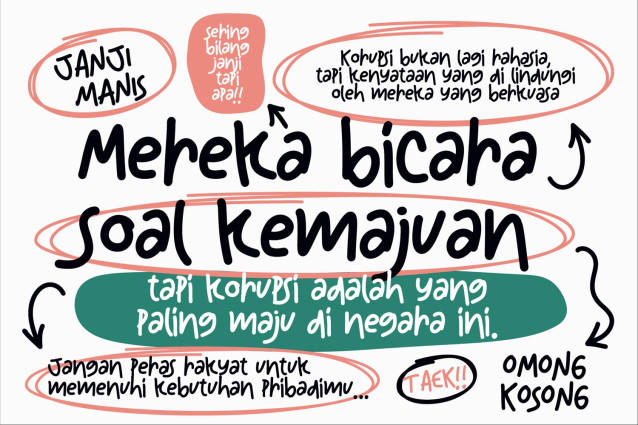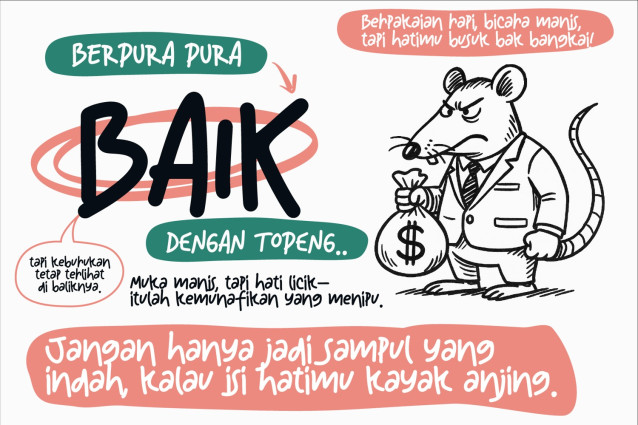
Bouncy Scriber Font
Bouncy Scriber Font is a playful and casual handwriting font designed to add a personal touch to your design projects. Perfect for posters, merchandise, branding, social media, and creative works, Bouncy Scrriber brings a unique, vibrant style to elevate your typography. Its dynamic handwritten flow and quirky character make your designs stand out and full of life.